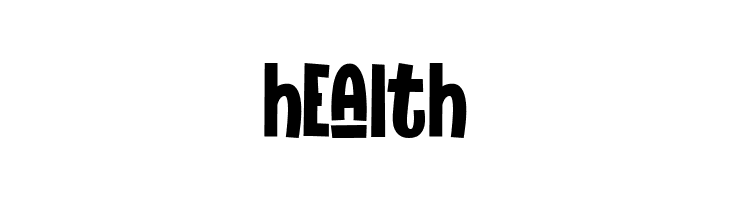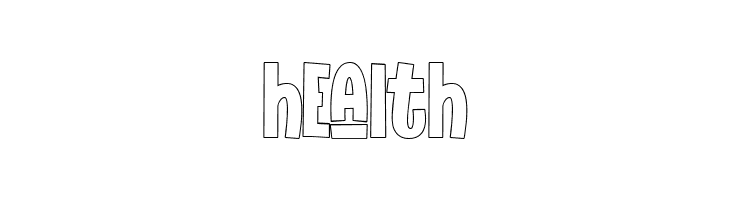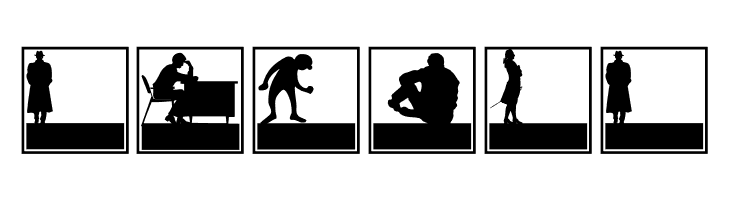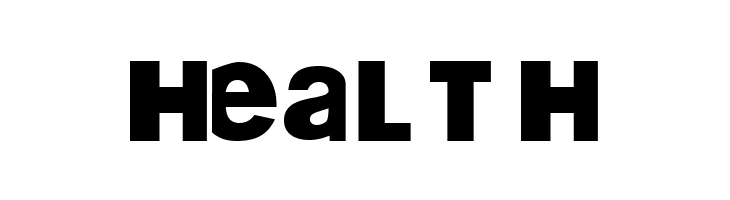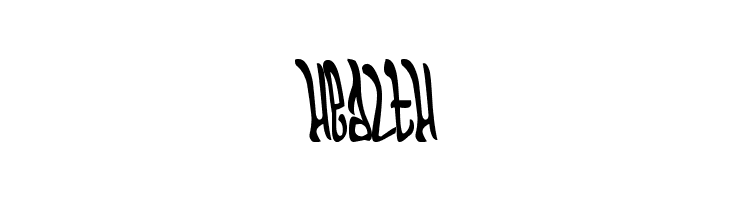
A bold, oblique font with a modern and dynamic style.
A modern, outlined font with geometric shapes and a structured appearance.
A bold, modern font with heavy strokes and geometric influences.
Silhouette pictogram icons with a bold, graphic style.
A bold, graffiti-inspired font with a dynamic, urban aesthetic.
A playful, outlined font with a cartoonish and whimsical style.
A playful, bold font with rounded, quirky characters.